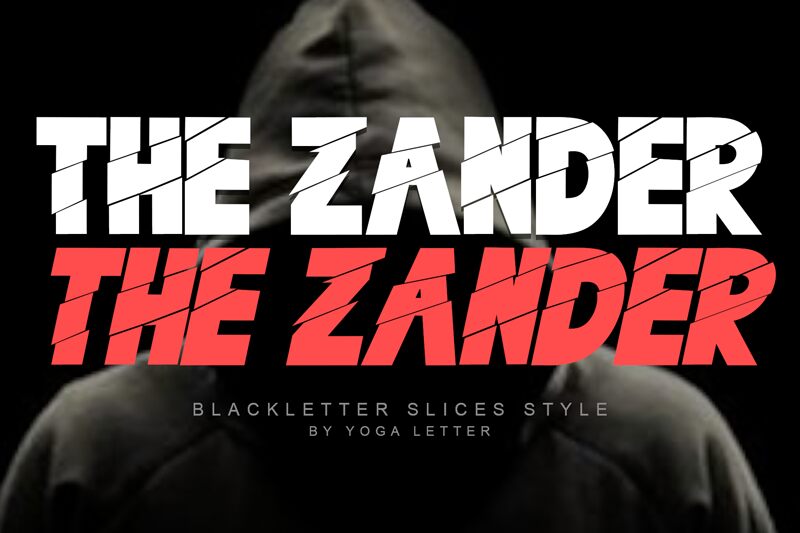
The Zander font family by Yoga Letter presents an edgy and impactful collection of free distorted fonts with a contemporary urban aesthetic. With a unique, strong presence and bold contrast, the font grabs the reader’s attention within the first glance. Each font style reflects a modern dynamic look achieved through aesthetic distortions, eroded shapes, and other stylistic means. This unusual style handles the best when in medium to large sizes, both in print and digital projects.
Make your signage, poster designs, book covers, web design, or even branding projects stand out! Other suitable uses include magazine covers, album covers, card designs, app designs, and many other useful visual communication areas. Distortion and erosion have a unique strength with added dynamism, ready to contribute to the success of your next typography-based communication.